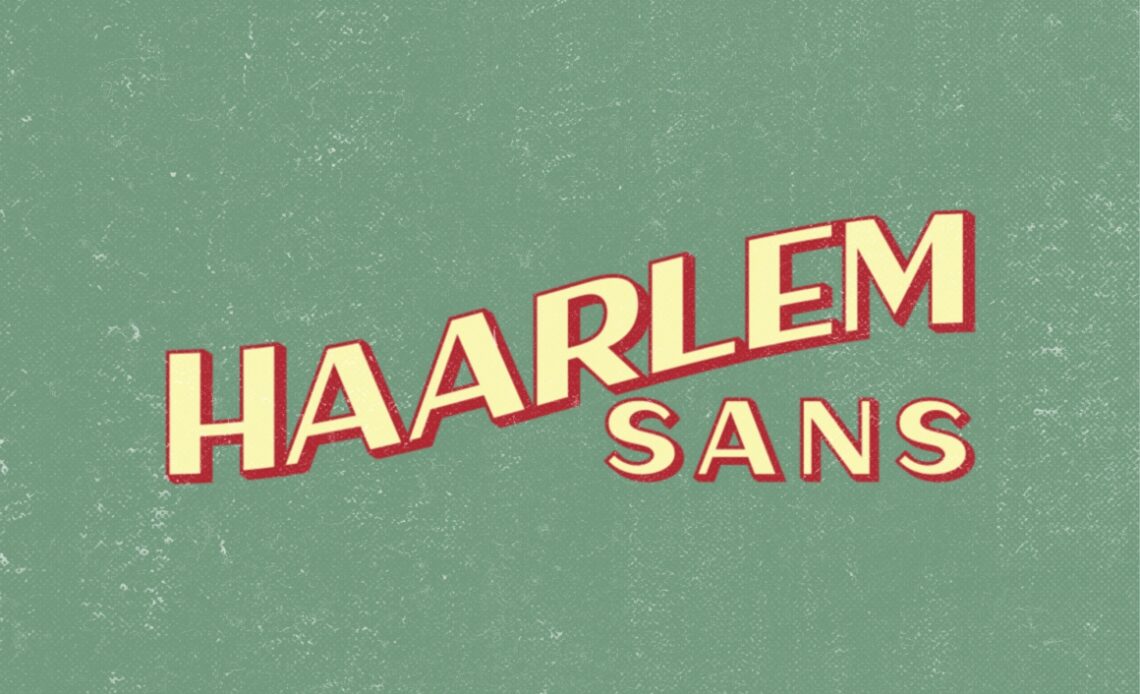
Welcome to the realm of Haarlem Sans Font, a display font family that's as captivating as the town it's named after. Its wide sans-serif form, infused with a touch of classic and art-deco flair, exudes a sense of timeless sophistication.
Drawing inspiration from the serene beauty of Haarlem, Netherlands, and the vintage charm of old-style letters, this font is a veritable masterpiece. Its bold strokes and expansive letterforms make it a champion in grabbing attention and filling vast spaces.
Whether you're a seasoned designer or a budding creative, Haarlem Sans Font is your perfect wingman. Its multilingual prowess allows you to effortlessly connect with a global audience, while its alternate characters add a dash of intrigue to your designs.
Available in two distinct styles, Regular and Italic, Haarlem Sans Font offers a versatile range of expressions. The Regular style is a steadfast anchor, providing stability and structure to your designs. The Italic style, on the other hand, dances with an elegant flow, injecting a touch of fluidity and dynamism into your creations.
With Haarlem Sans Font, you'll find a font that's not just a tool, but a muse. It's a font that ignites your imagination and sets your creativity free. So, embrace the allure of Haarlem Sans Font and watch your designs blossom into masterpieces.